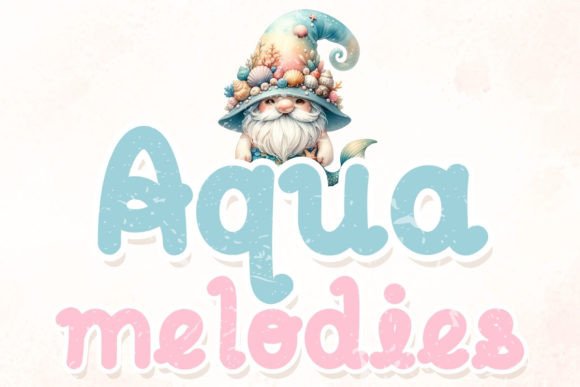
Aqua Melodies Font: A Charming and Whimsical Handwritten Font
Aqua Melodies Font is a beautiful and elegant handwritten font that is perfect for adding a touch of magic to your creative projects. With its graceful strokes and delicate curves, this font brings to mind the gentle ripples of water and the enchanting melodies of mermaids. In this article, we will explore the features and benefits of Aqua Melodies Font, and how it can be used to captivate your audience with its beauty and charm.
Features of Aqua Melodies Font
Aqua Melodies Font is a charming and whimsical handwritten font that is designed to add a touch of elegance and playfulness to your creative projects. Some of its key features include:
- Graceful Strokes: Aqua Melodies Font features gentle and flowing strokes that give it a soft and delicate appearance.
- Delicate Curves: The font’s curves are carefully crafted to create a sense of movement and fluidity, making it perfect for projects that require a touch of whimsy.
- Handwritten Style: Aqua Melodies Font is a handwritten font that is designed to look like it was written with a pen or pencil, giving it a personal and unique touch.
- Elegant and Playful: The font’s elegant and playful design makes it perfect for a wide range of creative projects, from invitations and greeting cards to branding and advertising.
Benefits of Using Aqua Melodies Font
Aqua Melodies Font offers a range of benefits for creative professionals and DIY enthusiasts. Some of the benefits of using this font include:
- Unique and Eye-Catching: Aqua Melodies Font is a unique and eye-catching font that is sure to grab the attention of your audience.
- Versatile: The font’s elegant and playful design makes it perfect for a wide range of creative projects, from formal invitations to playful branding campaigns.
- Easy to Read: Aqua Melodies Font is designed to be easy to read, making it perfect for projects that require a clear and legible font.
- Customizable: The font can be customized to fit your specific needs, allowing you to add your own personal touch to your creative projects.
Uses of Aqua Melodies Font
Aqua Melodies Font is a versatile font that can be used for a wide range of creative projects. Some of the most popular uses of this font include:
- Invitations: Aqua Melodies Font is perfect for formal and informal invitations, including wedding invitations, birthday invitations, and graduation invitations.
- Greeting Cards: The font’s elegant and playful design makes it perfect for greeting cards, including birthday cards, holiday cards, and thank-you cards.
- Branding: Aqua Melodies Font can be used for branding projects, including logos, packaging, and advertising campaigns.
- Digital Media: The font can be used for digital media, including social media graphics, blog posts, and website designs.
Tips for Using Aqua Melodies Font
Here are some tips for using Aqua Melodies Font in your creative projects:
- Use it sparingly: Aqua Melodies Font is a beautiful font, but it can be overwhelming if used too much. Use it sparingly to add a touch of elegance and whimsy to your projects.
- Pair it with other fonts: Aqua Melodies Font can be paired with other fonts to create a unique and interesting design.
- Experiment with colors: The font’s elegant and playful design makes it perfect for experimenting with different colors and color combinations.
- Pay attention to spacing: Make sure to pay attention to spacing when using Aqua Melodies Font, as it can affect the overall appearance of your project.
Aqua Melodies Font is a charming and whimsical handwritten font that is perfect for adding a touch of magic to your creative projects. With its graceful strokes and delicate curves, this font brings to mind the gentle ripples of water and the enchanting melodies of mermaids. Whether you’re creating invitations, greeting cards, or branding projects, Aqua Melodies Font is sure to captivate your audience with its beauty and charm.